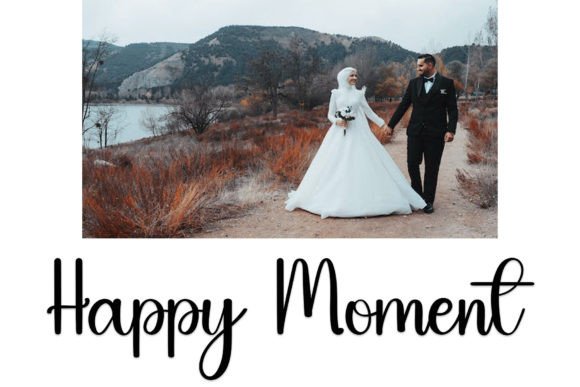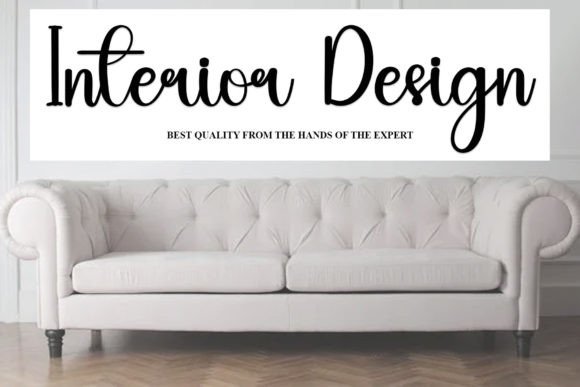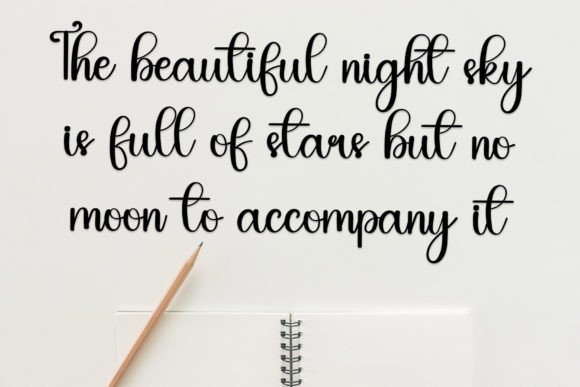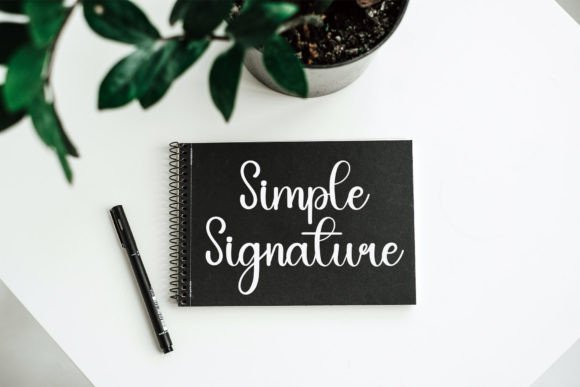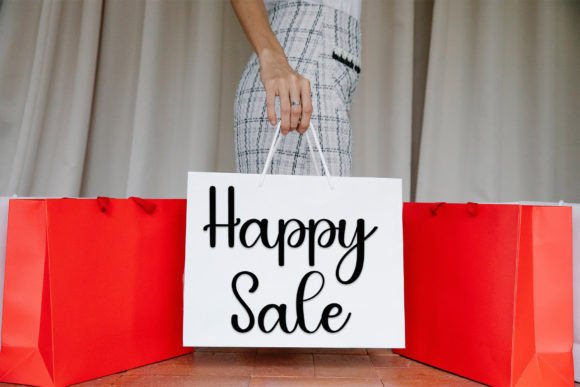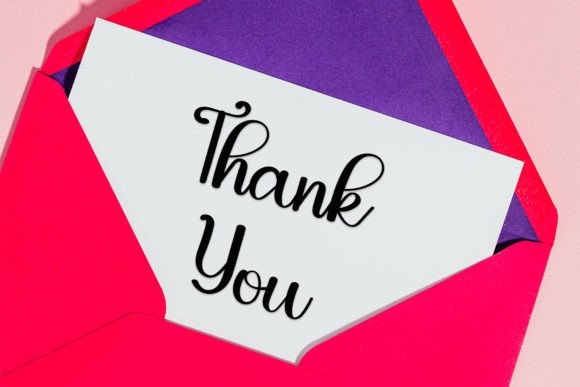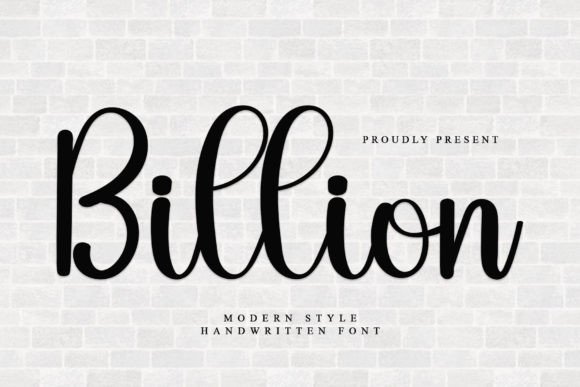
The Billion Font: A Timeless, Handwritten Gem for Your Designs
Have you ever been working on a project, pouring your heart and soul into it, only to hit a roadblock when it comes to finding the perfect font? I certainly have! It was during one of those moments, scrolling through font after font, that I stumbled upon the stunning Billion font. Its elegant, handwritten touch immediately caught my eye, and I knew I had to share it with fellow designers, crafters, and creative hobbyists.
A Personal Review: What I Love About Billion Font
So, what makes the Billion font so special? Here are a few things that I absolutely love:
• Elegant and refined: The Billion font boasts an incredibly distinct and timeless style that’s perfect for creating spectacular designs.
• Versatile: Whether you’re working on a logo, a poster, or a social media graphic, this font adapts seamlessly to any project.
• 💫 Unique character set: The font comes with a wide range of characters, ensuring that your designs will always stand out.
While the Billion font is truly amazing, there are a few minor quirks to be aware of:
• 🤔 Limited multilingual support: Although the font covers a wide range of characters, it may not support all languages.
• ⚠️ Occasional kerning issues: As with any font, you may encounter some kerning issues, especially when using it at smaller sizes.
The Designer Inspiration Behind Billion Font
Although the true story behind the Billion font’s creation remains a mystery, it’s easy to imagine that its designer was inspired by the beauty of handwritten calligraphy. Perhaps they spent countless hours pouring over vintage typography books, searching for the perfect blend of elegance and playfulness. Whatever the inspiration, the result is a font that’s both timeless and versatile.
What type of projects is the Billion font best suited for? The Billion font is perfect for a wide range of projects, including logos, posters, social media graphics, and more.
Is the Billion font suitable for body text? While the Billion font is beautiful, it’s best used for headings and titles. For body text, you may want to choose a more legible font.